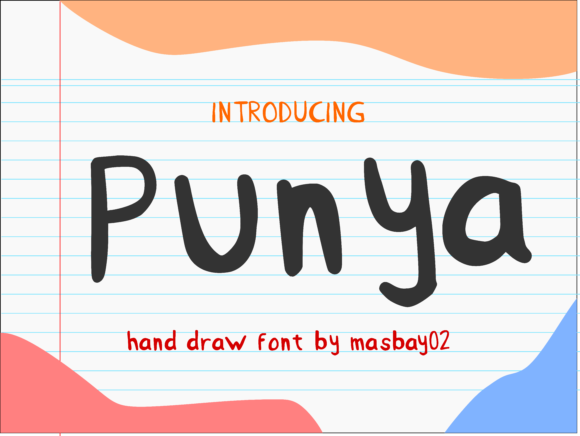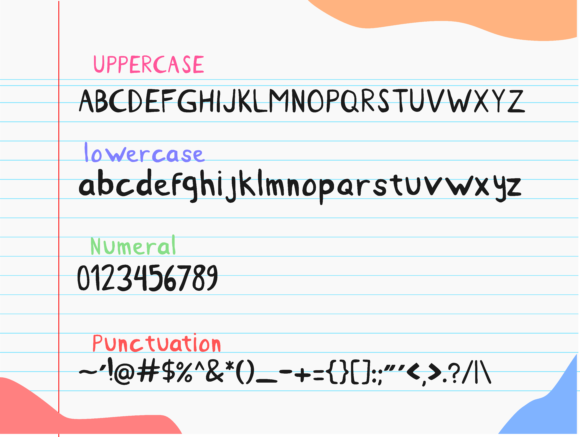
Punya Font
About Punya Font
Punya is a casual handwritten font. It has a relaxed and jolly style. Whether you’re looking for fonts for Instagram or calligraphy scripts for DIY projects, Punya will turn any creative idea into a true piece of art!